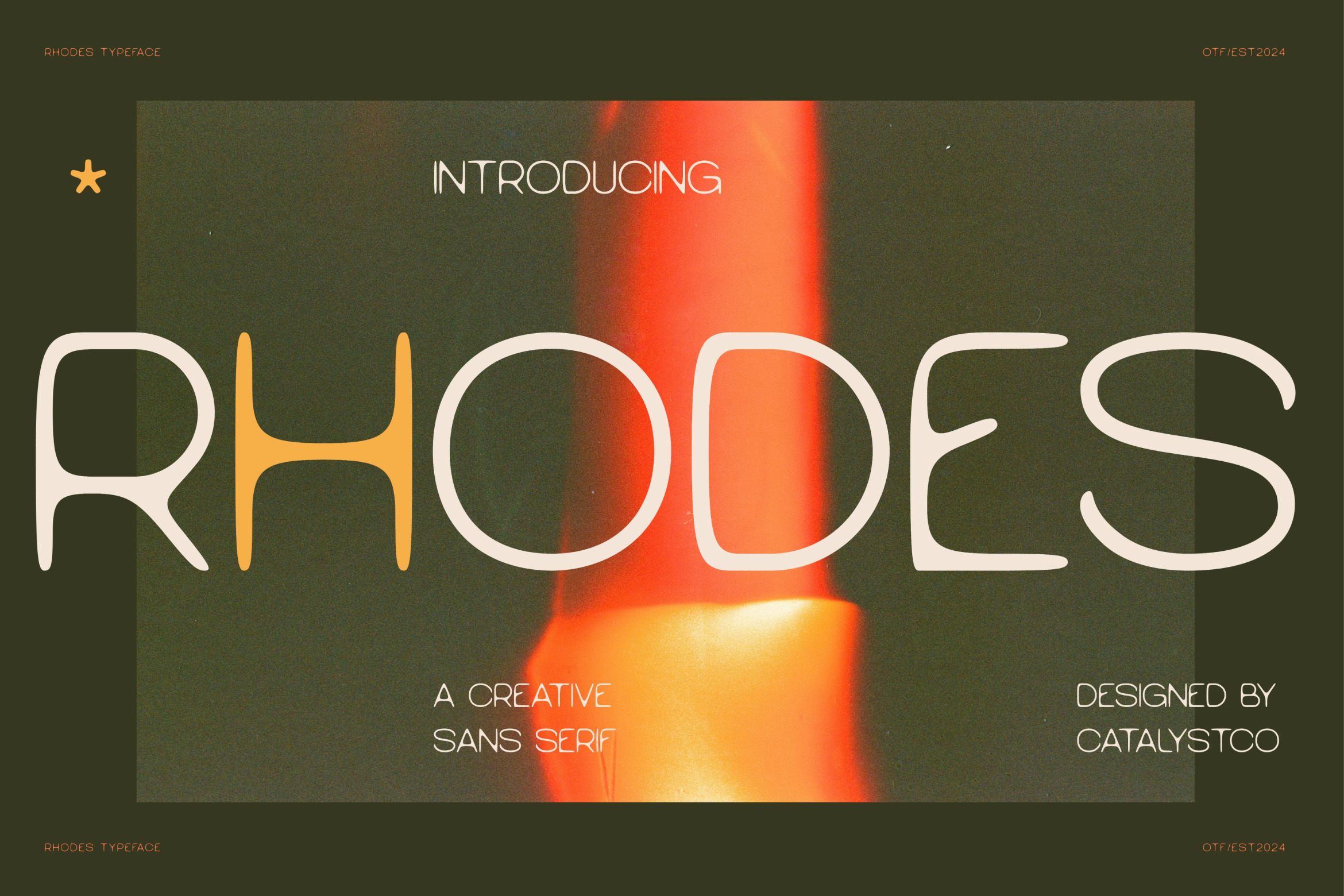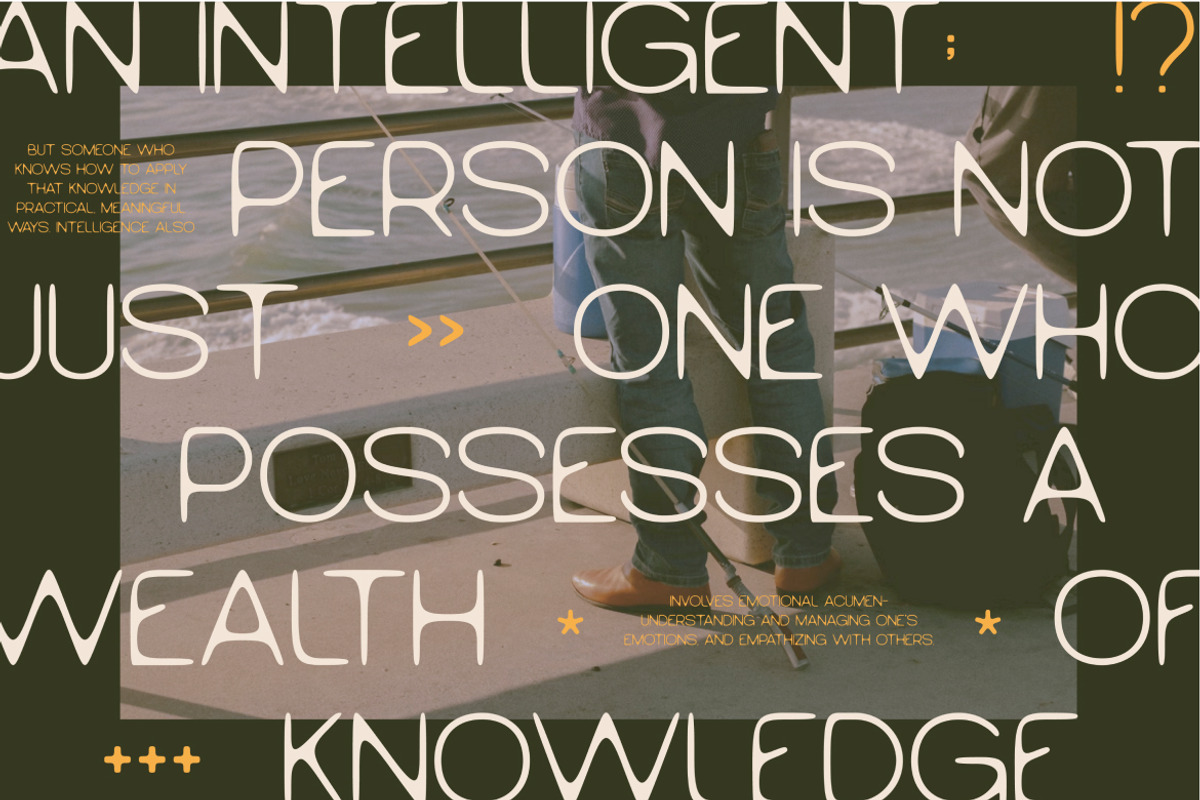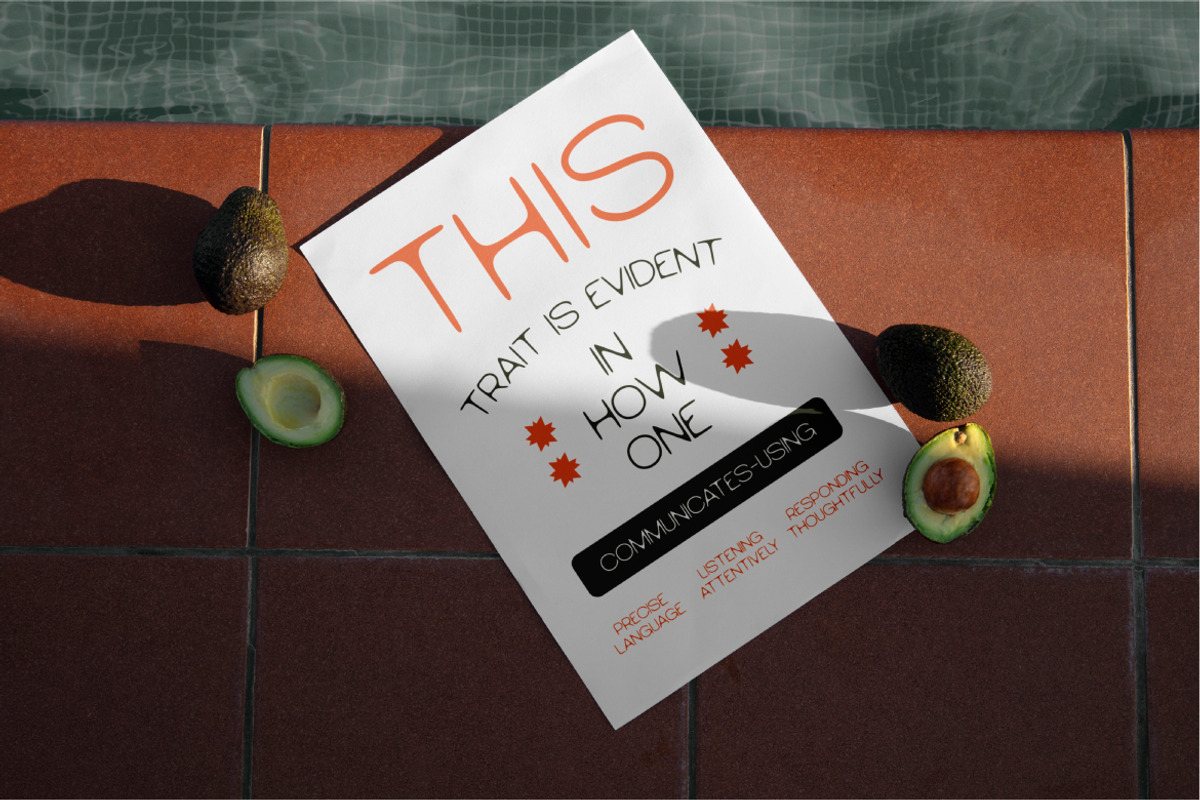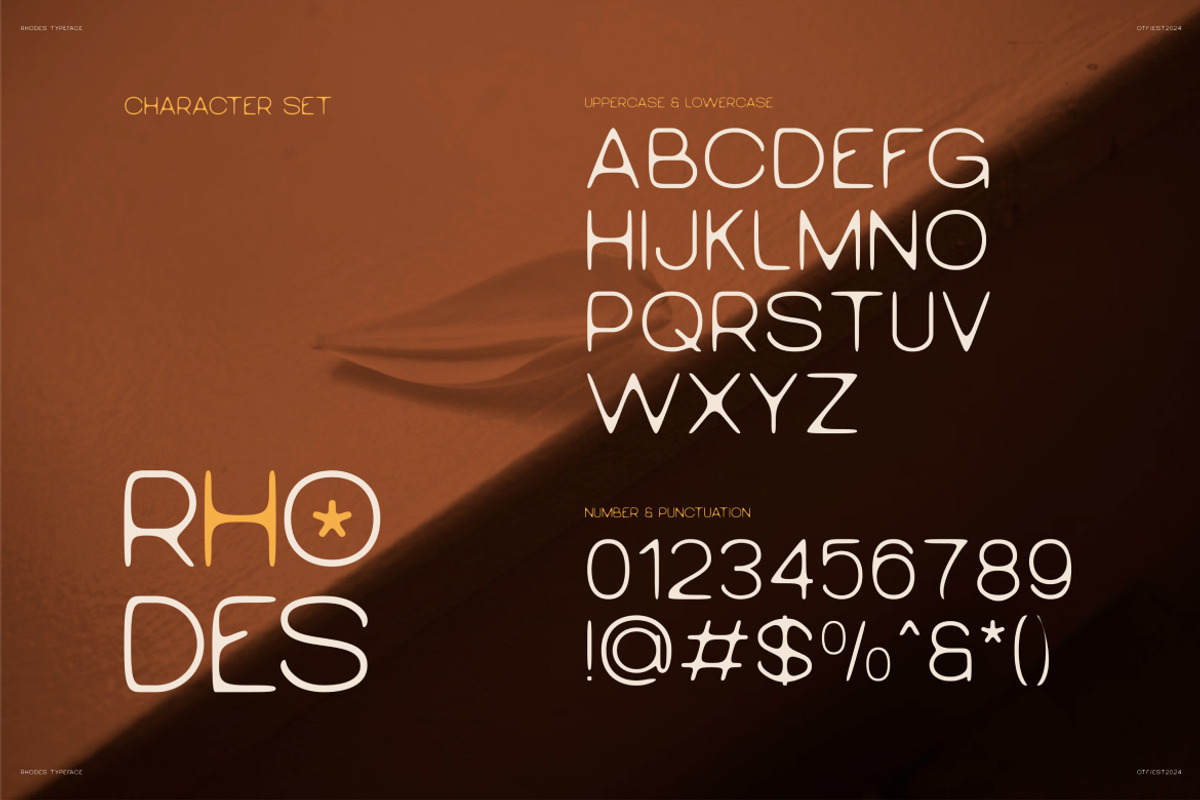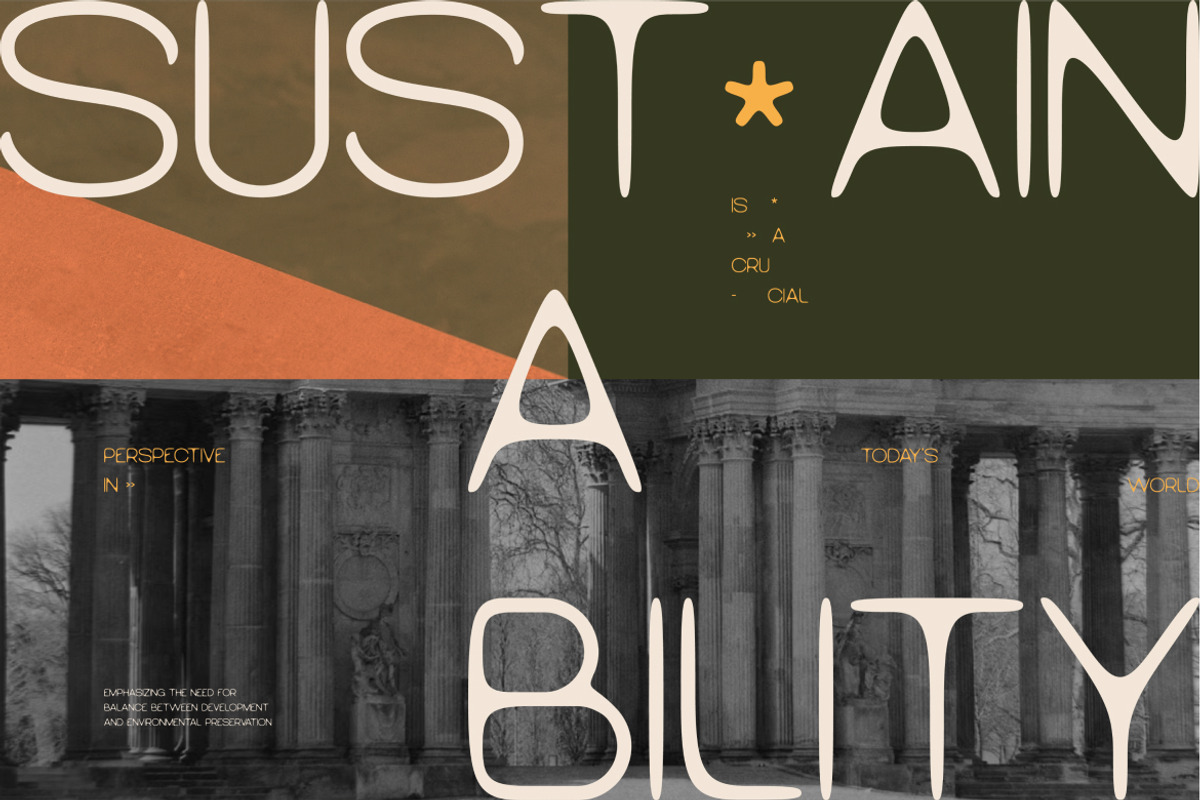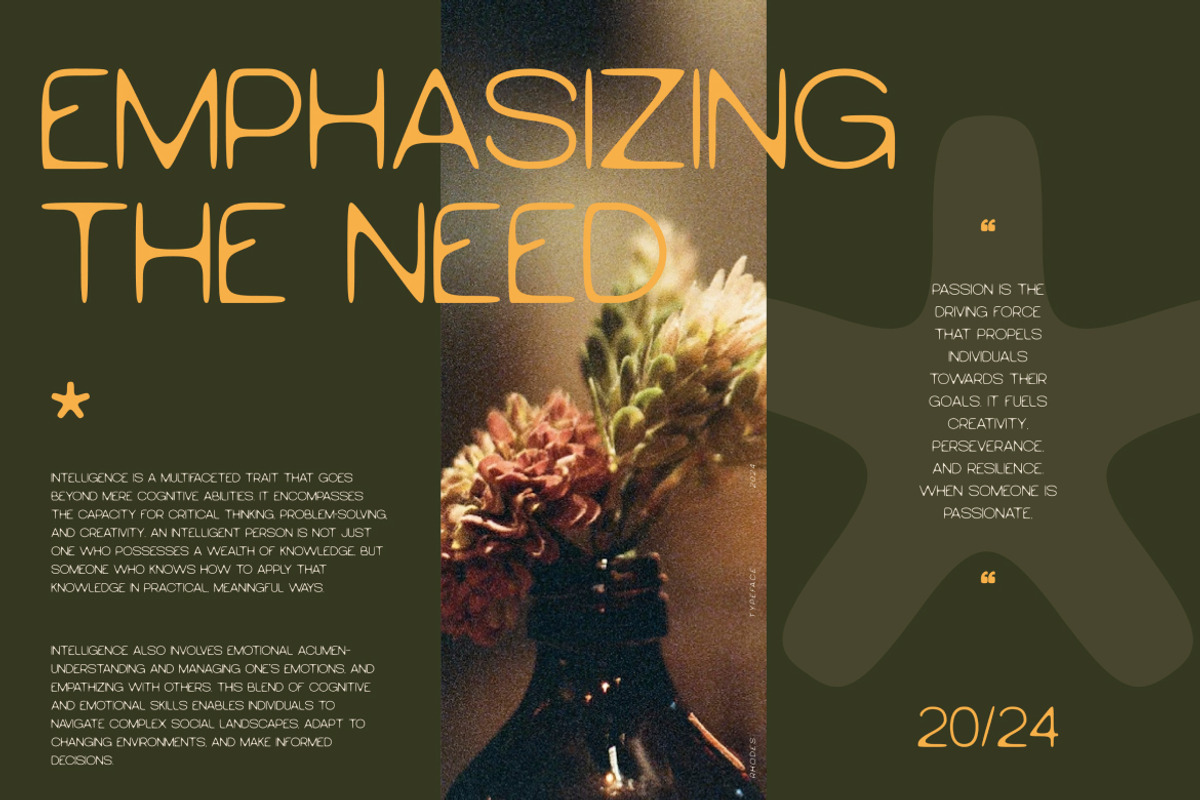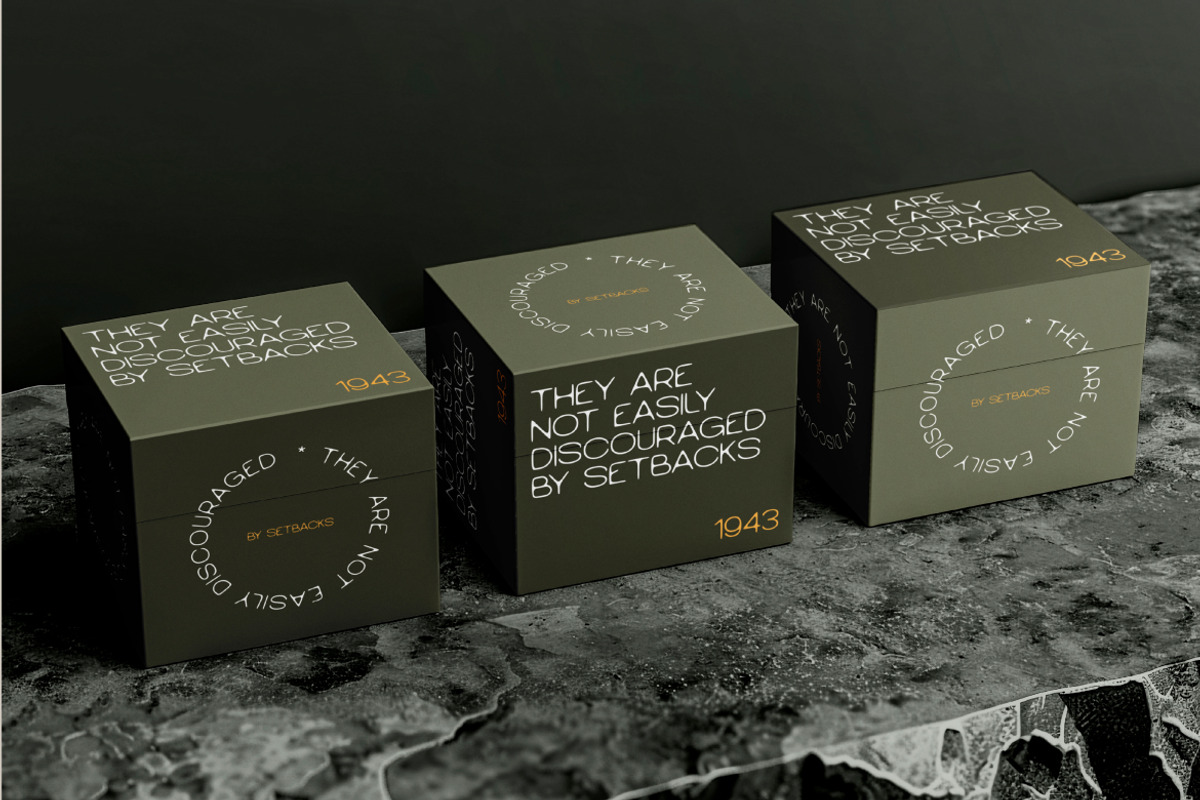
Rhodes Creative Sans Serif Font
Rhodes Creative Sans Serif Font typeface excellent used for the manufacture quote text, logotype, header magazine, and many more.